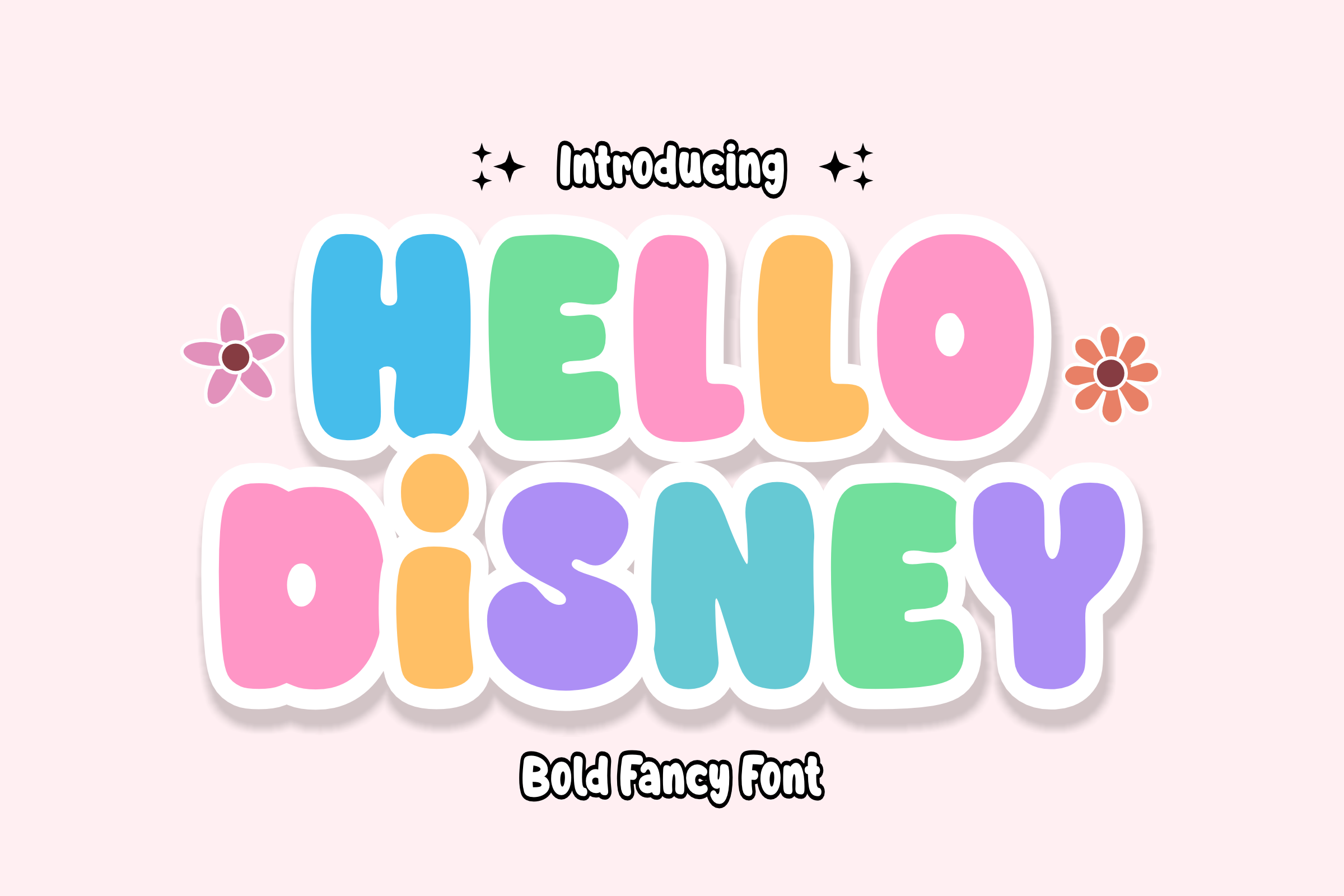
Hello Disney - Display Font
✨ Hello Disney - Magical Display Font 🏰 Step into a world of wonder with Hello Disney! This magical display font is designed to bring a touch of enchantment and joy to your creative projects. Featuring bold, bouncy, and rounded characters with a clean "sticker-style" outline, this font perfectly captures the nostalgic and whimsical spirit of a fairy-tale adventure.
With its friendly curves and high-impact look, Hello Disney is your go-to choice for designs that need to feel fun, inviting, and truly iconic.
🌟 Key Features: 🪄 Uppercase Alphabet: Playful and bold letters that stand out effortlessly. 🎈 Numbers 0-9: Consistent magical styling for all your numerical needs. 💫 Simple Symbols: Essential punctuation to add that final sparkle. ✂️ Clean Cut Outlines: Perfect for stickers, vinyl cutting, and bold headlines.
Bring the magic to life with the Hello Disney font!